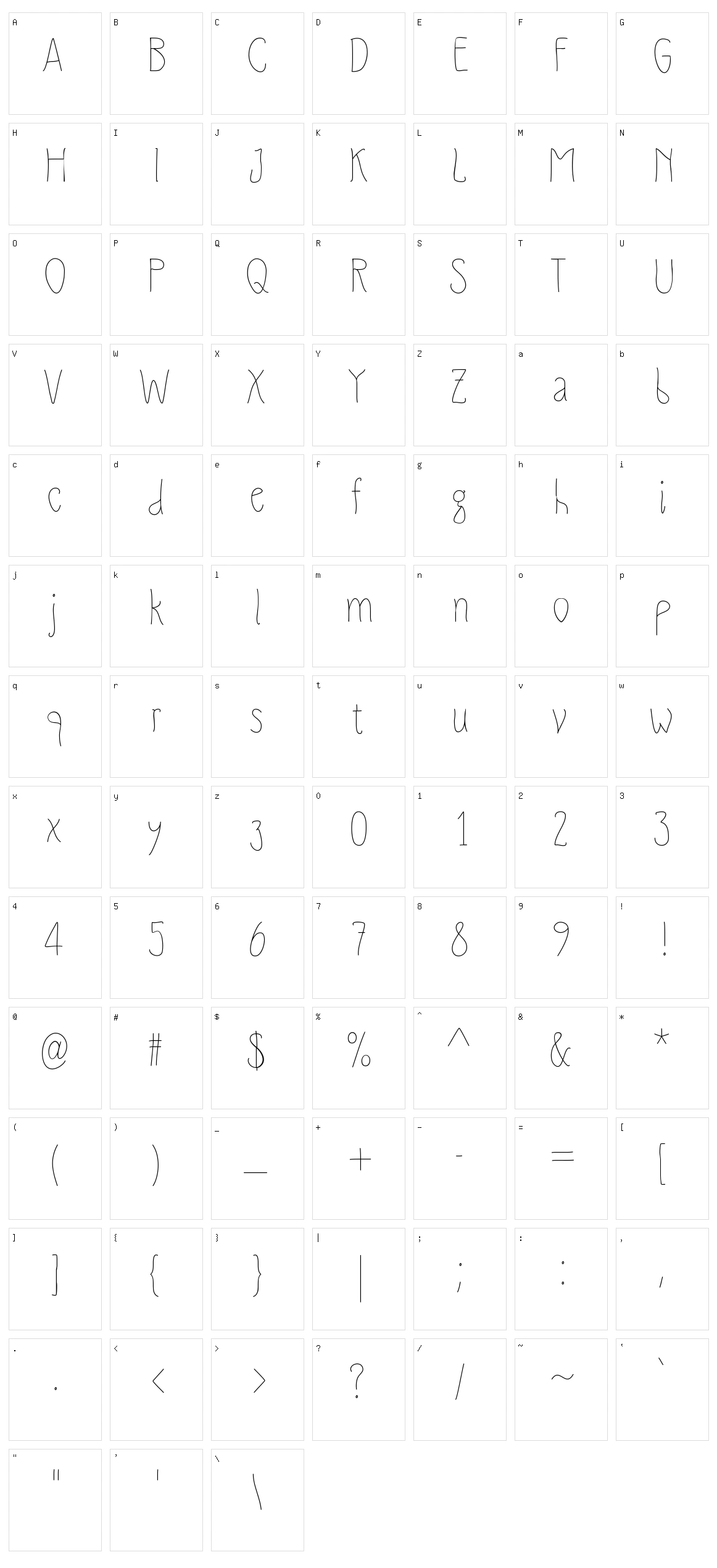
Slimamif Font - ШÑиÑÑ Ð¡Ð»Ð¸Ð¼Ð°Ð¼Ð¸Ñ
It has extended Latin, Greek and Cyrillic character sets and can be used for Russian, Ukrainian, Belorussian, Latvian and virtually all other European languages and more that 70 ethnic languages of Russian Federation. It has new Ruble sign and other special characters that are used on the web.
Stylistically it's thin, light font, somewhat between handwritten and art nouveau.
Slimamif was designed by Dmitri Zdorov in 2016 and updated often.